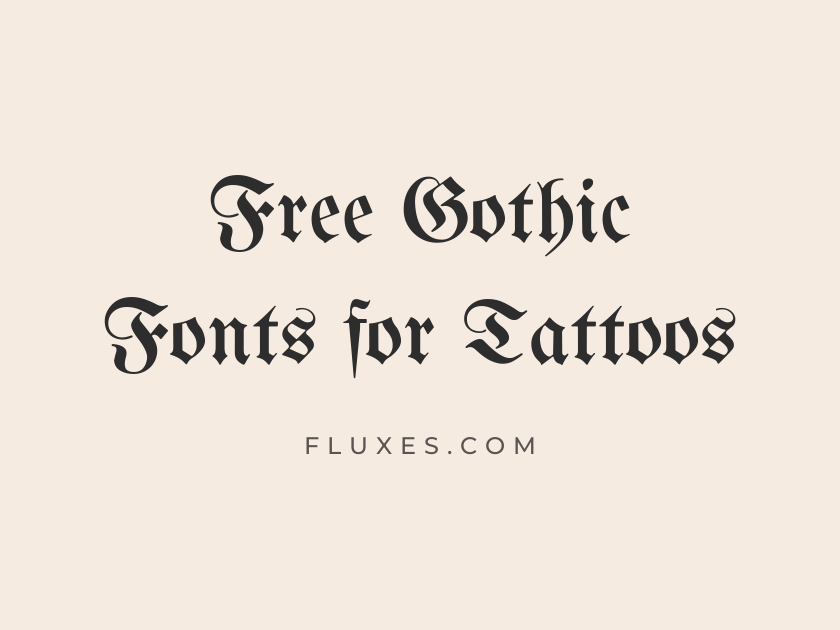
43 Best Free Gothic Fonts for Tattoos
Gothic lettering has been part of tattoo culture for generations, long before anyone typed a preview sentence into a font menu. The heavy, angular strokes of blackletter and fraktur carry the exact weight a name, date, or memorial phrase needs on skin, while horror-leaning display faces give flash sheets their bite. Finding free gothic fonts that actually hold up at tattoo scale, rather than just looking dramatic on a screen, takes some digging through Google Fonts.
What follows spans true blackletter and Old English tattoo font alternatives, medieval and Celtic-inflected serifs, dripping horror display type, and a handful of high-contrast serifs for a more refined gothic mood. Every one of them is free to use, easy to license for client work and flash designs, and ready to test as a stencil before it ever touches a needle.
1. UnifrakturMaguntia
Few free typefaces capture the classic Old English tattoo look as convincingly as this one. Its jagged, high-contrast strokes echo the hand-lettered gothic script inked on countless forearms and chest pieces since the early days of American tattooing. Because the paid Old English Text MT is out of reach for most workflows, UnifrakturMaguntia has become the default free alternative for anyone typing out a name, date, or scripture verse in true fraktur style. Keep it large; the delicate hairlines can turn muddy at small sizes on both screen and skin.
2. UnifrakturCook
Where UnifrakturMaguntia leans delicate, its cousin UnifrakturCook comes in heavier and blunter, with thicker strokes that read more like a woodcut stamp than a pen flourish. It suits bold chest-plate lettering or gothic logo work where legibility at a glance matters more than filigree.
3. Pirata One
Pirata One softens the fraktur formula into something rounder and more approachable, making it a favorite for gothic-flavored branding as well as tattoo flash. It still reads unmistakably gothic, just with edges sanded down enough to stay legible in short phrases.
4. Grenze Gotisch
A rare variable blackletter, Grenze Gotisch ships in everything from a hairline sketch to a near-black slab, unusually flexible for a genre normally locked to a single weight. Designers mocking up tattoo lettering at different sizes can dial in exactly the stroke weight a piece needs without switching families.
5. Fruktur
Fruktur trades some of the historical strictness of true fraktur for friendlier, more open counters, so it stays readable even when a client wants a longer phrase across the ribs or forearm.
6. Germania One
Bold, blocky, and unapologetically heavy, Germania One reads like a woodblock stamp from an old German printing house. It has become a favorite in metal and gothic subculture graphics, and it translates just as well into stark, high-contrast tattoo lettering.
7. IM Fell English
Named for the seventeenth century Oxford printer whose metal type it revives, IM Fell English brings genuine antique texture rather than horror-movie drama. It suits scripture verses, memorial dates, and other text-heavy tattoo pieces where an old-manuscript feel matters more than gothic menace.
8. IM Fell Great Primer
A slightly larger-scaled sibling in the same historical type revival, IM Fell Great Primer carries the same worn, hand-set character. Use it where a design calls for a passage of text rather than a single bold word.
9. MedievalSharp
MedievalSharp does exactly what its name promises: angular, sword-edged letterforms pulled from a fantasy manuscript. It pairs naturally with dagger, rose, and skull imagery in traditional gothic tattoo flash.
10. Metamorphous
Metamorphous has a rougher, more organic medieval texture than most blackletter alternatives, with strokes that look hand-carved rather than typeset. It works well for single words or short mottos rendered at a decent size.
11. Uncial Antiqua
Rooted in rounded Celtic and early medieval script rather than pointed German fraktur, Uncial Antiqua is the natural choice for Celtic knotwork tattoos, monastic quotes, or anything meant to evoke illuminated manuscripts instead of horror-movie gothic.
12. Caesar Dressing
Caesar Dressing drips like wet ink along the baseline, giving it an obvious home in horror and occult tattoo flash. It is a display font in the truest sense, best kept to a word or two rather than full sentences.
Always test a design as a printed stencil before it goes anywhere near skin. What looks sharp on a monitor can lose its edges once ink actually spreads.
Whether the goal is a strict Old English tattoo font, a medieval manuscript feel, or a full horror-flash mood, this list covers the range of free gothic options worth building a design around. Download a few, print some proofs at the size the piece will actually be inked, and let the letterforms earn their place on skin.